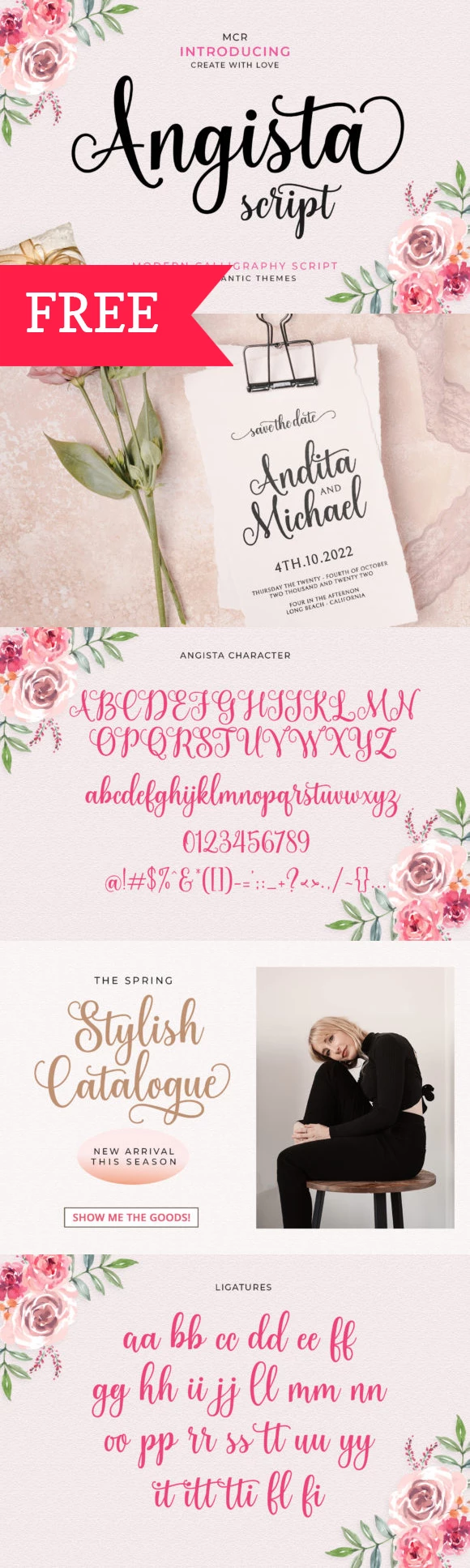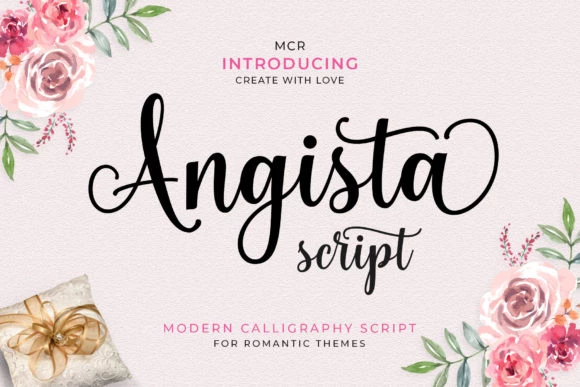
Free Angista Script Font
Featuring the Free Angista Script Font from Creative Fabrica
Creative Fabrica has one of the pretties (free) crafting fonts available called Angista Script! It can be used to create a variety of projects such as: